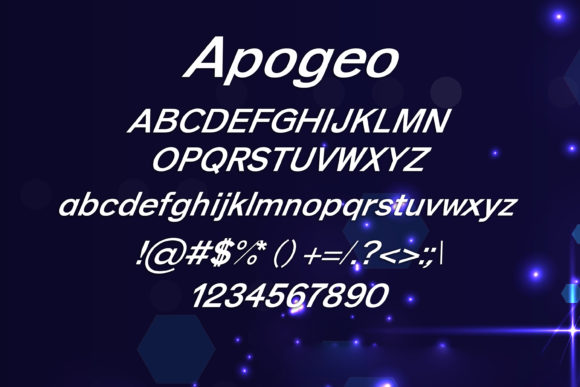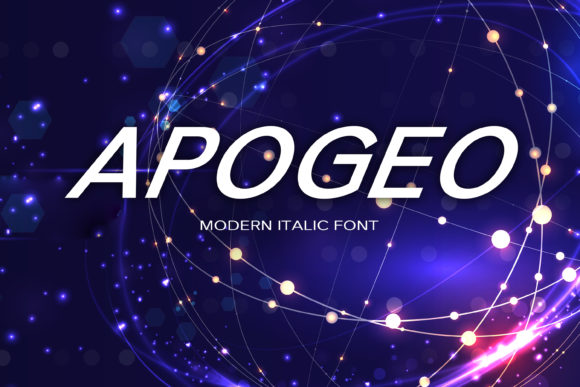
The Apogeo Font: A Modern Twist on Traditional Sign Painting
I’ll never forget the design project that led me to discover the Apogeo font. I was working on a branding project for a trendy coffee shop, and I needed a font that would capture the modern and edgy vibe of their brand. I spent hours scouring through font libraries, but nothing seemed to fit the bill. That was until I stumbled upon Apogeo, a sans serif font that instantly caught my eye.
Apogeo is a super clean and minimal typeface inspired by traditional sign painting with a modern twist. It’s perfect for modern and contemporary designs such as logos, headlines, business cards, t-shirts, and much more. In this article, I’ll share my honest review of Apogeo, provide a practical guide on how to use it, and explore similar fonts and alternatives.
My Honest Review of Apogeo
- ✨ Super clean and minimal design that’s perfect for modern brands
- 💡 Unique and stylish, making it stand out from more traditional sans serif fonts
- 🎨 Versatile and can be used for a wide range of design projects
While Apogeo is an amazing font, it’s not perfect. Here are a few quirks to keep in mind:
- 🤔 Limited language support, so it’s best used for English or similar languages
- ⚠️ Some users may find the font too minimalist or lacking in personality
- Experiment with OpenType features, such as ligatures and stylistic alternates, to add personality to your text
The Designer Inspiration Behind Apogeo
Apogeo was designed with traditional sign painting in mind, but with a modern twist. The designer wanted to create a font that would capture the clean and minimalist aesthetic of modern design, while still paying homage to the classic sign painting styles of the past.
Q: What is Apogeo font?
A: Apogeo is a sans serif font inspired by traditional sign painting with a modern twist.
Q: What can I use Apogeo for?
A: Apogeo is perfect for modern and contemporary designs such as logos, headlines, business cards, t-shirts, and much more.
Q: Is Apogeo easy to read?
A: Yes, Apogeo is highly legible, even at small font sizes.